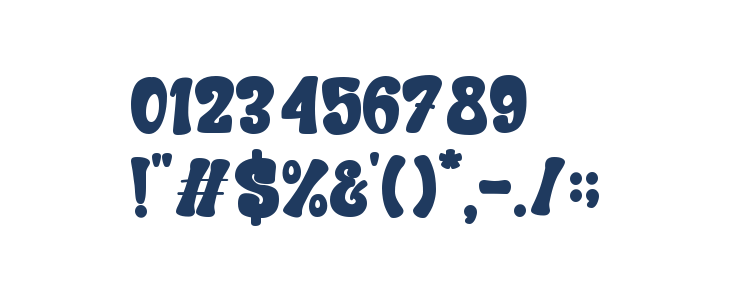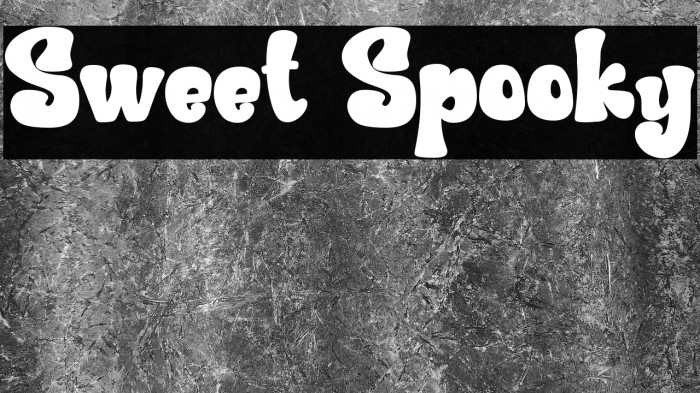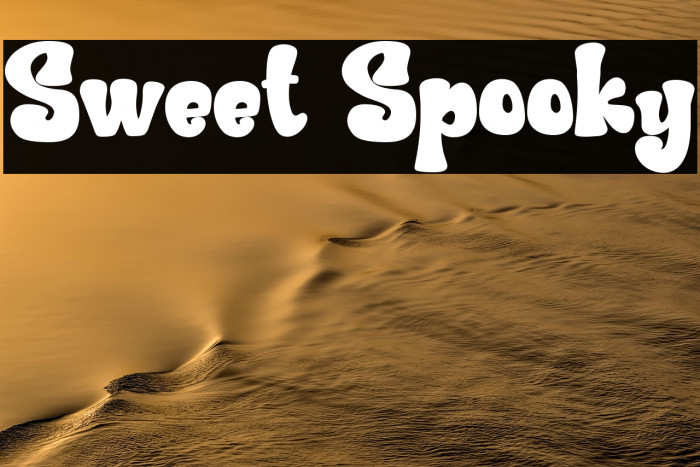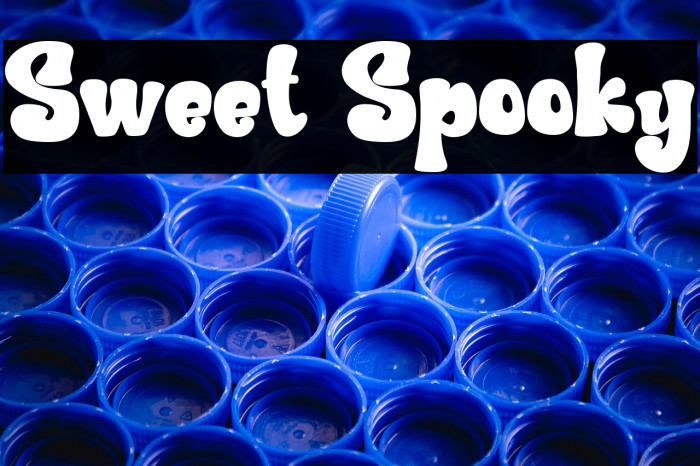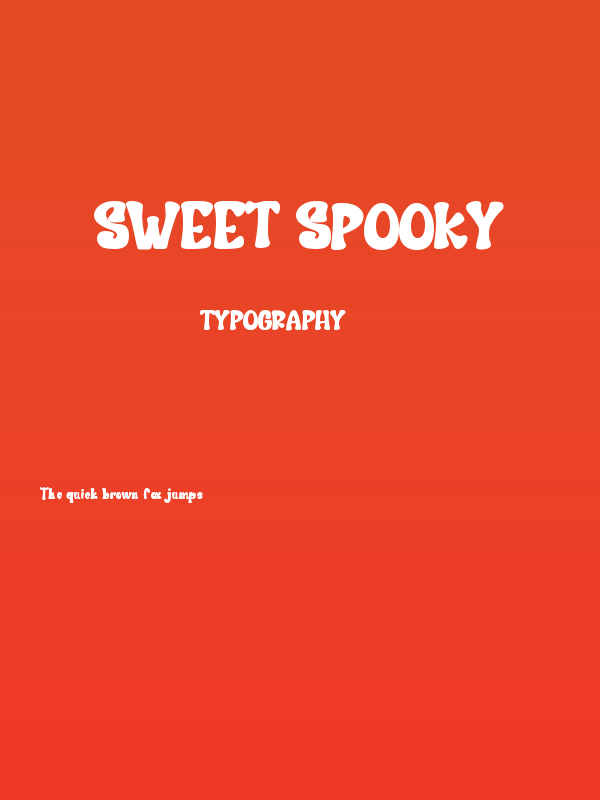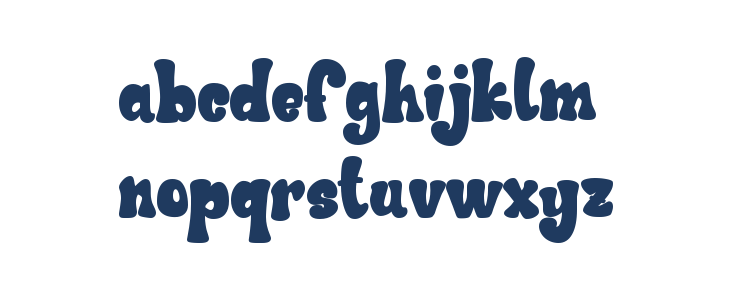
Sweet Spooky Font
Sweet Spooky Description
This playful and bold font features thick, rounded characters with a whimsical and slightly spooky vibe. The letters have a cartoonish appearance, with exaggerated curves and a bubbly texture that adds a sense of fun and excitement. The uppercase and lowercase letters maintain a consistent style, while the numbers and special characters complement the overall design. This font is perfect for projects that require a touch of humor and creativity, making it ideal for Halloween-themed designs or any playful branding.
| Overall Style | Playful, Whimsical, Spooky |
| Proposed Projects | Ideal for Halloween-themed designs, children's book covers, playful branding, and party invitations. |